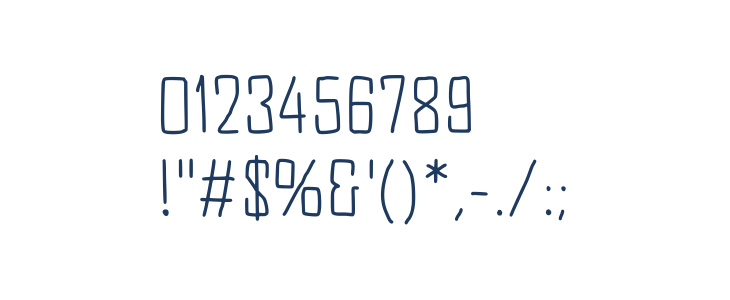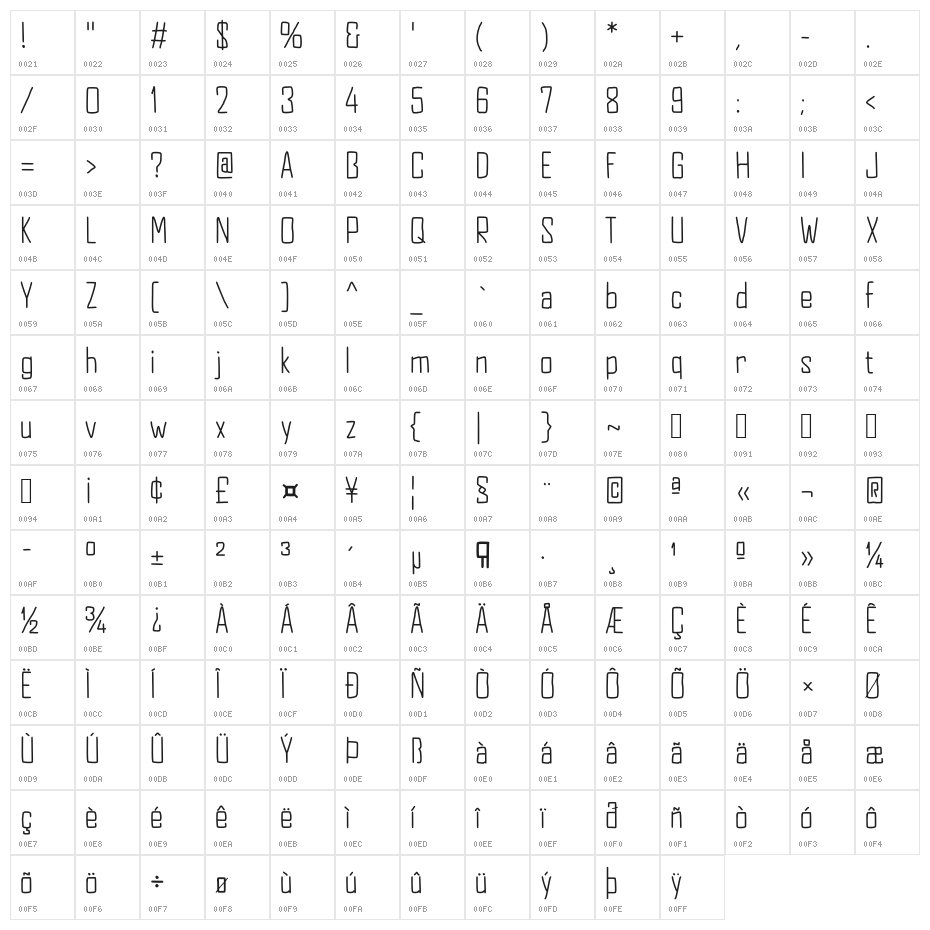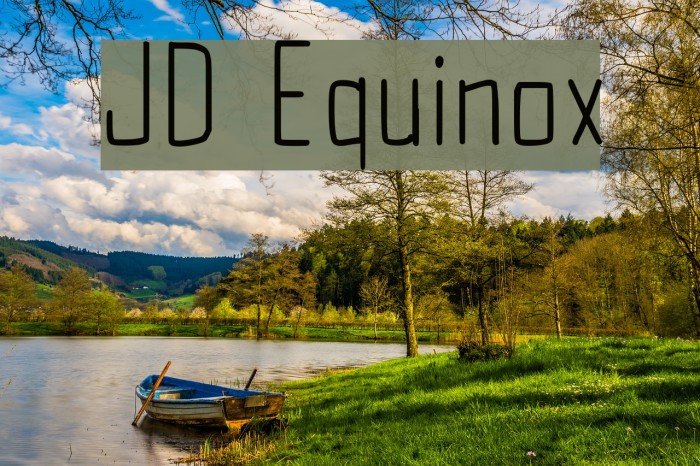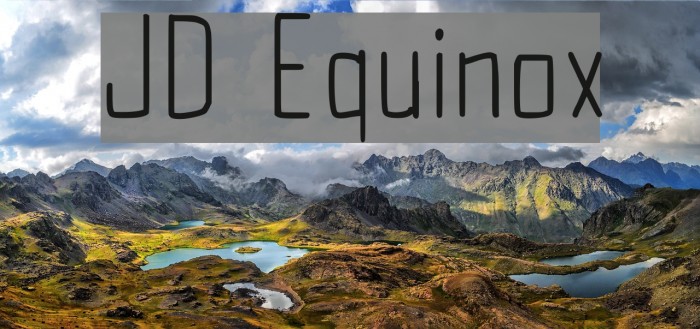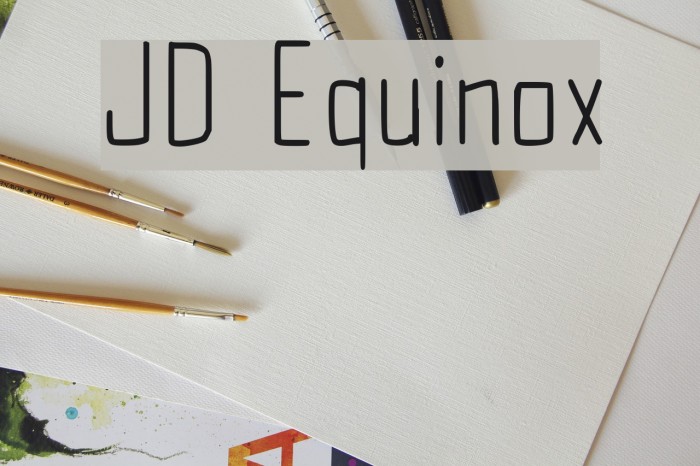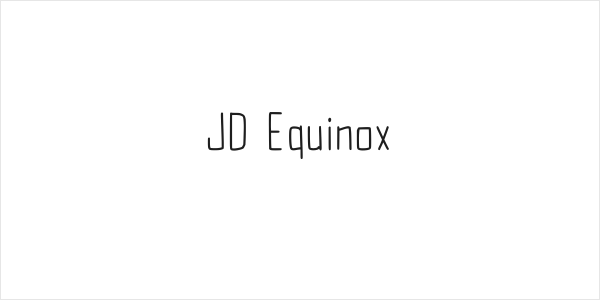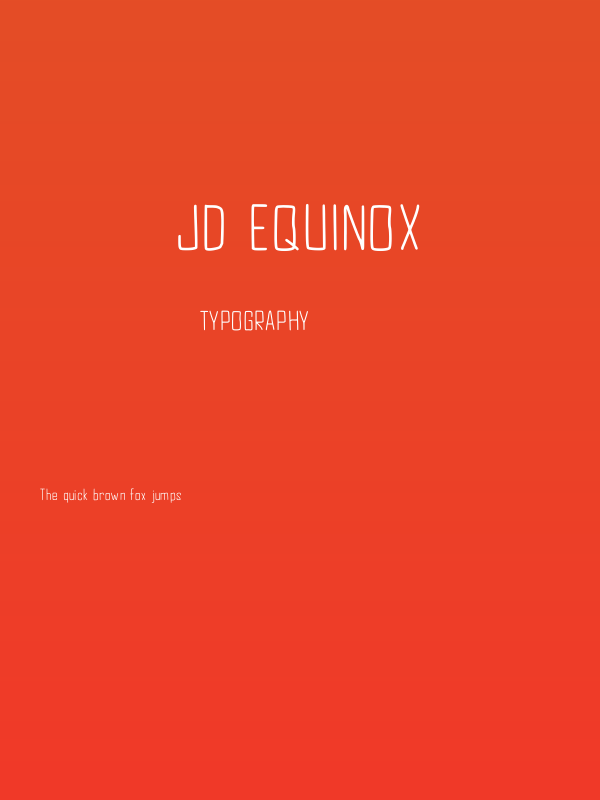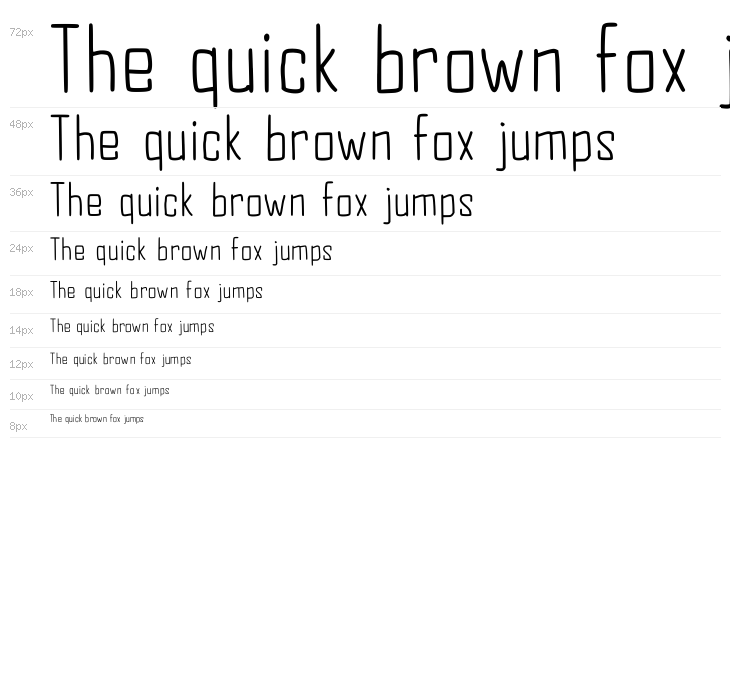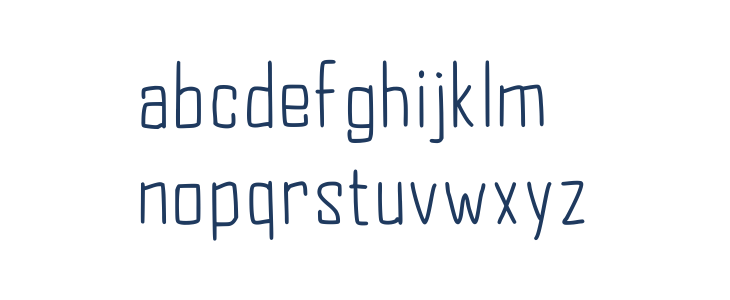
JD Equinox Font
JD Equinox Description
This font features a clean, geometric design with a modern aesthetic. The characters are constructed with uniform line thickness, giving it a monolinear appearance. Its structure is slightly condensed, which contributes to a sleek and efficient look. The uppercase letters have a distinctive angularity, while the lowercase letters maintain a consistent height, enhancing readability. The numerals are clear and straightforward, matching the overall style of the alphabet. Special characters are well-integrated, maintaining the font's cohesive design. This font is versatile, suitable for both digital and print media, and can effectively convey a contemporary and professional tone.